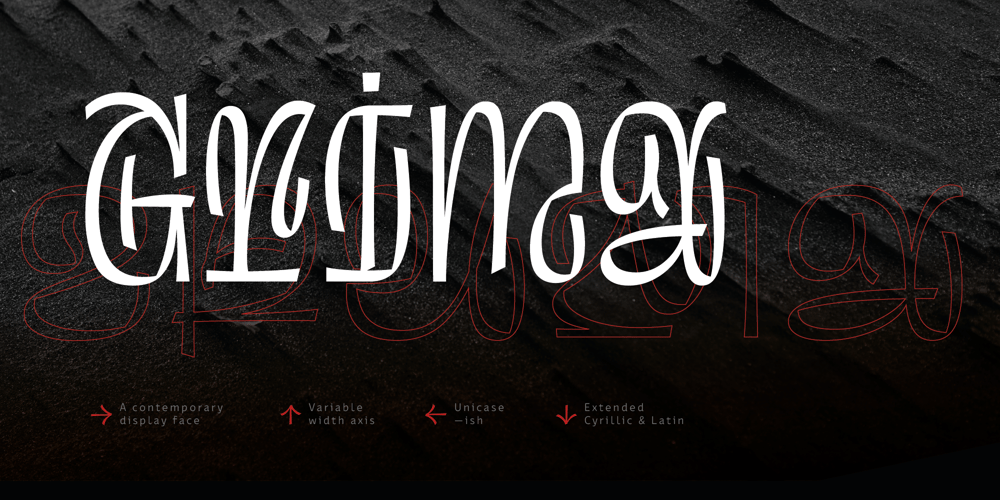
Grima
Grima font
Grima Font Family was designed by Todor Georgiev and published by Fontfabric. Grima contains 6 styles and family package options. Grima Font Family is a crisp contemporary display face based on the idea of “Unispace” – a new genre on the font scene gaining inspiration from both unicase and monospaced type delivered by Fontfabric. The family consist of 5 fonts with fixed weight and expanding width – from Narrow to Ultra Wide. You can find those combined in a single variable font which gives more flexibility to use the typeface in various design scenarios.Letters have the slightest descenders and even shorter ascenders in order to achieve glyphs with a similar-ish height but varying width. Each has a unique skeleton designed to fill the body as tightly as possible. Equal spacing between characters combined with their detailed shapes make lines of text become intricate pieces. Ones which seem to have a deeper story behind them – sometimes magical, other times grim.Grima Font Family was born in collaboration with ever-experimenting letterer Todor Georgiev, part of the Letter Collective team. The typeface is an exploration in elaborate forms, driven by a fertile idea with legibility coming third behind challenge and innovation. Based on pencil sketches of faux flat brush lettering with calligraphic details. Created with the intent to fill the gap of Bulgarian non-conventional typefaces.